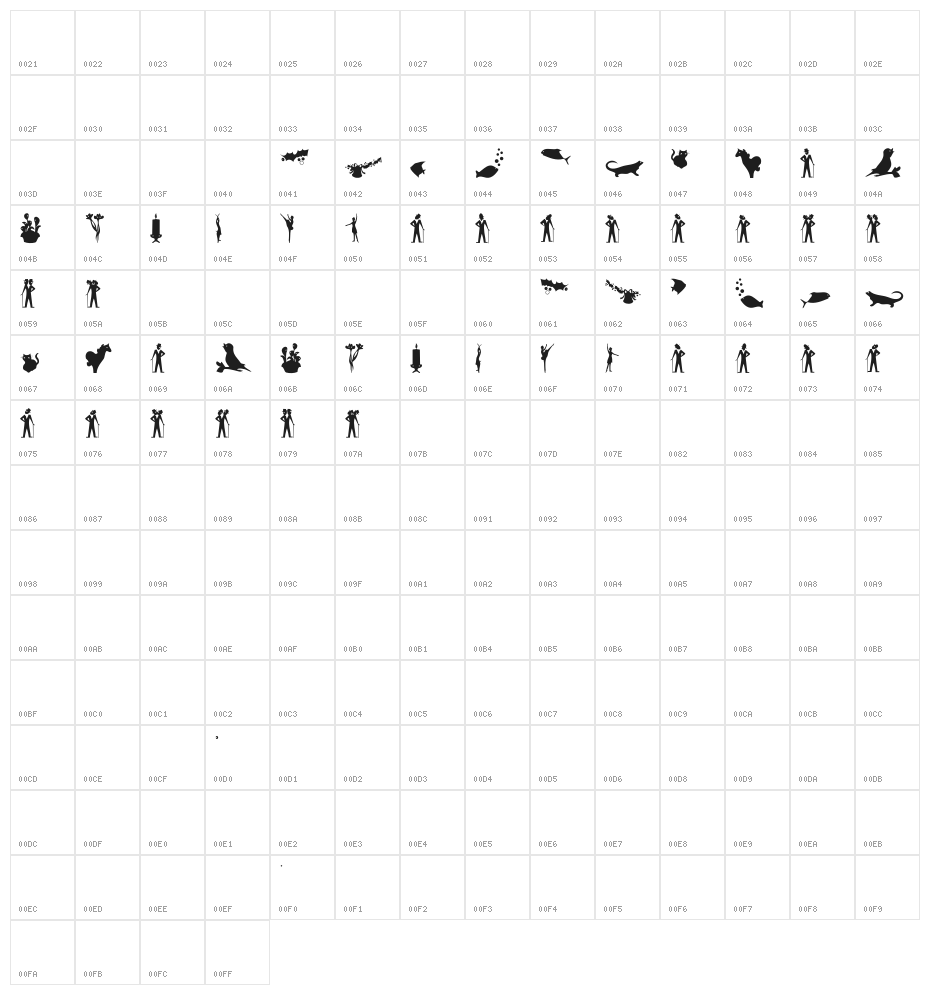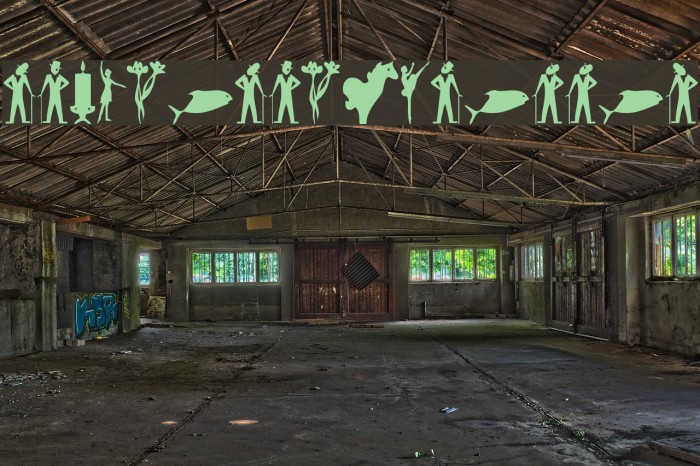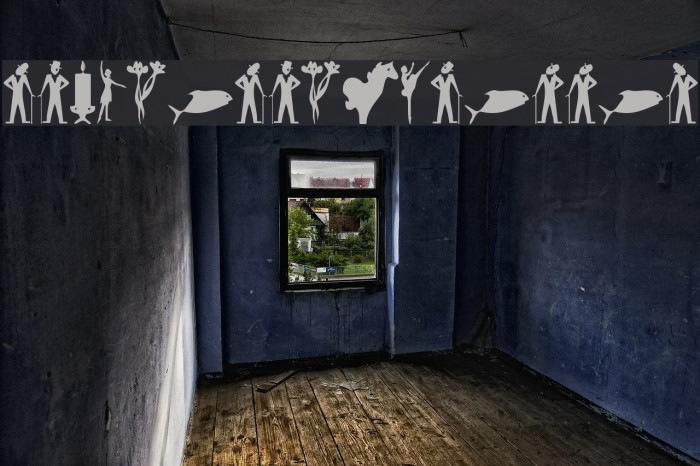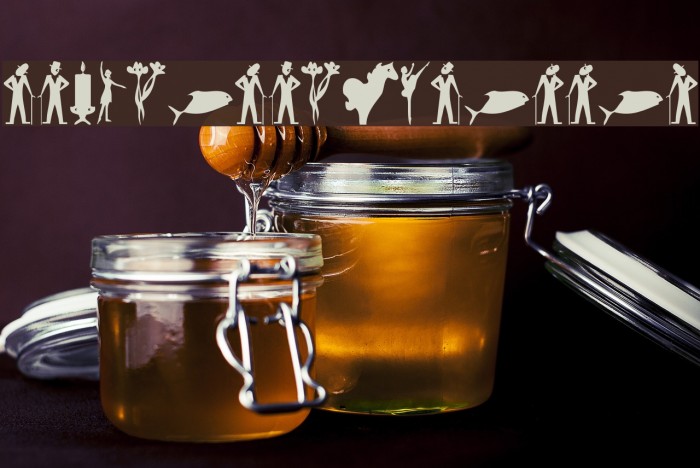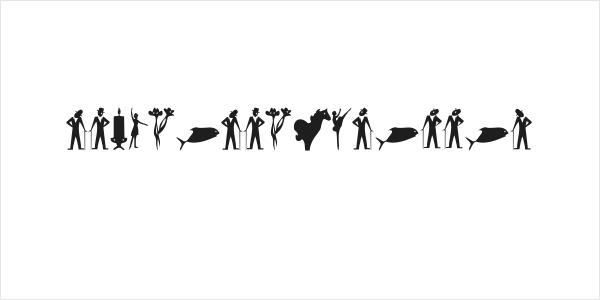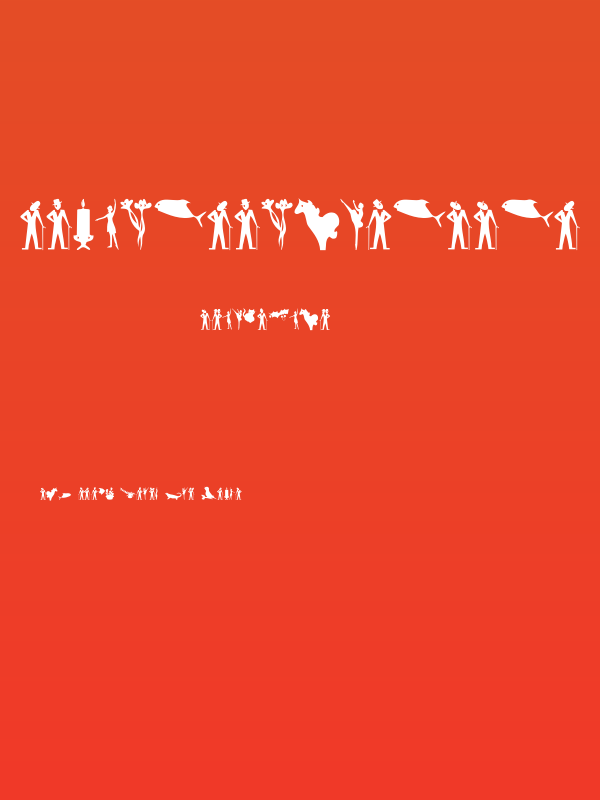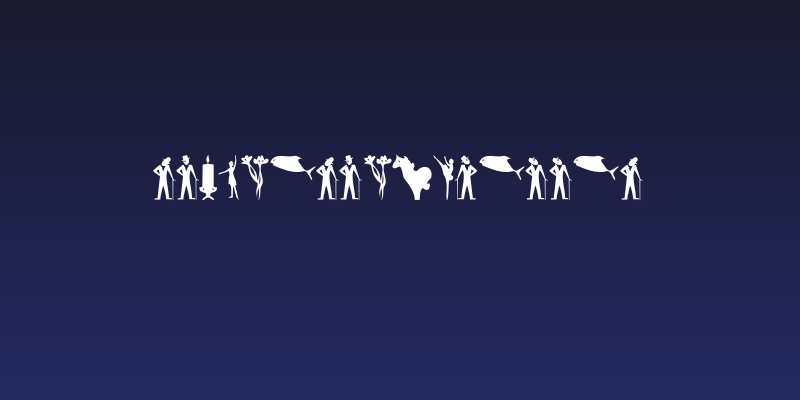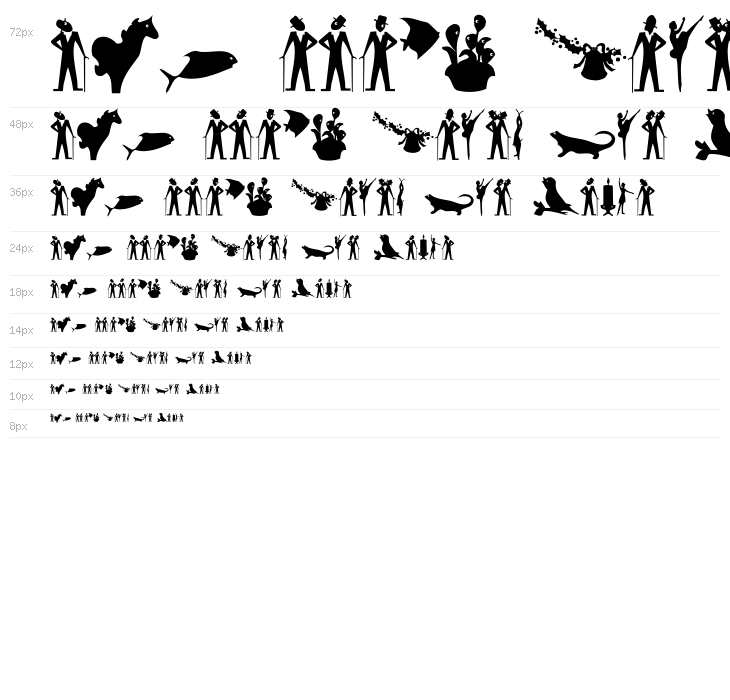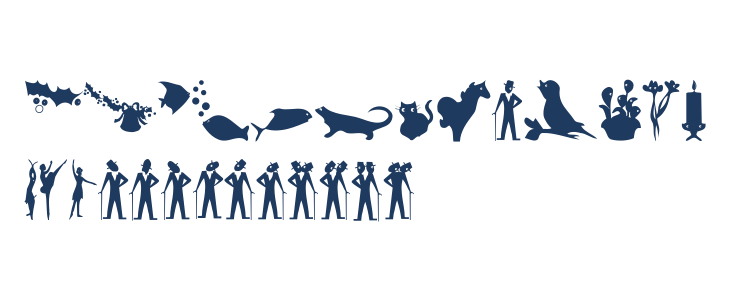
SimpleSilhouettes Font
SimpleSilhouettes Description
This set of silhouettes features a whimsical collection of figures and objects, each rendered in a bold, black style. The characters include dancers, animals, and various objects, all depicted in a playful and imaginative manner. The silhouettes are highly stylized, with exaggerated forms and a sense of movement, making them ideal for creative projects. The boldness of the silhouettes ensures they stand out, while the variety of shapes offers versatility in design applications. These silhouettes can be used to add a touch of fun and creativity to any project, from children's books to playful branding elements.
Overall StyleWhimsical, Playful, Creative
Use CaseDecorative elements, Creative projects, Branding
Proposed ProjectsIdeal for children's books, playful branding, creative posters, and decorative elements.